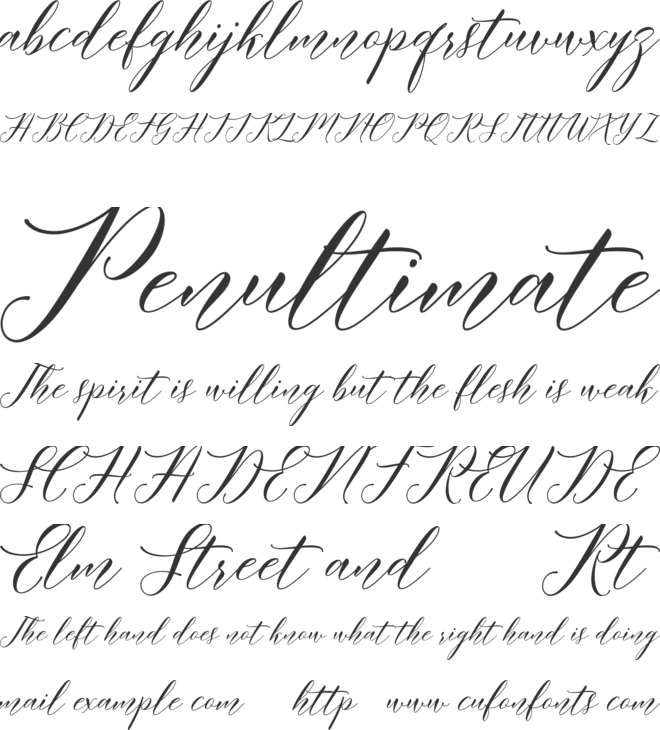
Meetha Script Demo Font
Introducing Meetha Script
Meetha Script is modern calligraphy script font. This is a beautiful script font with italic style. Made gently and danced to give the character of modern writing that is sweet, simple, stylish and firm.
Meetha Script Demo font preview